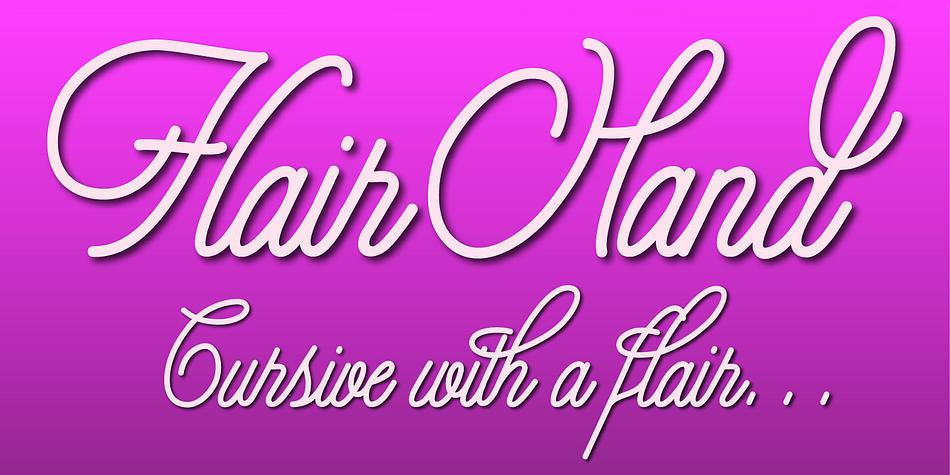
Flair Hand
Flair Hand is a script font published by Gerald Gallo Fonts.
Flair Hand is a pleasing hand-lettered cursive font with uppercase and lowercase alphabets, numbers, punctuation, symbols, and miscellaneous characters.
The ascenders and descenders of the lowercase alphabet have exaggerated loops that add a unique flair to any message. The exaggerated-looped characters have alternate characters without loops for use where a looped character is not appropriate or desired.
Flair Hand is ideal for headlines, titles, branding, small blocks of text or wherever a fresh cursive font with flair is desirable.